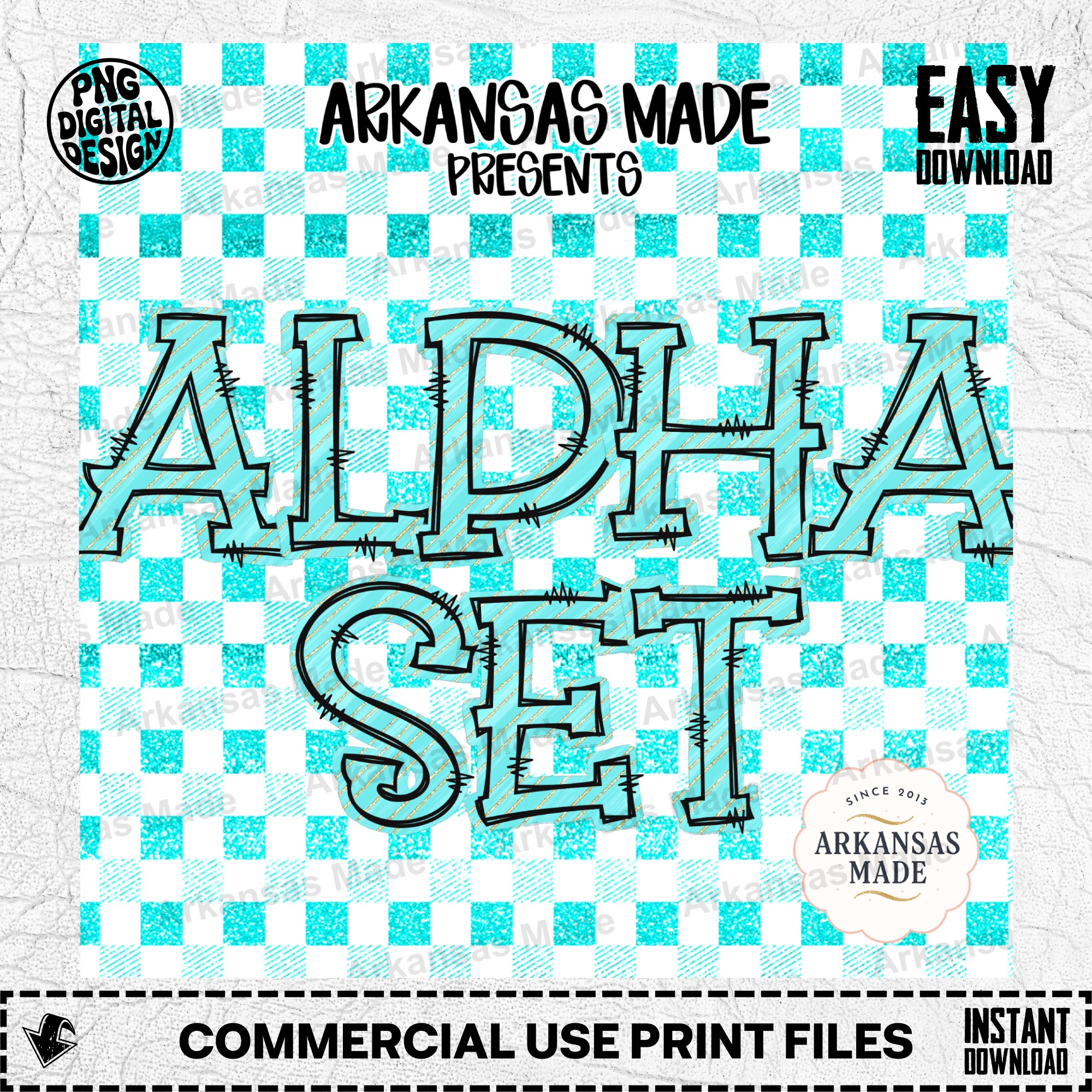
Digital Download Alpha Set PNG, Teal Glitter Alphabet Letters, Faux Gold Outline Doodle Font, Sublimation Craft Supplies
Instantly elevate your designs with our Teal Glitter Digital Download Alpha Set PNG! Featuring faux gold accents and a playful doodle outline. This vibrant alphabet set is perfect for crafters, small business owners, and DIY enthusiasts looking to add a personalized touch. Create stunning custom t-shirts, tumblers, scrapbook pages, and more for birthdays, holidays, or everyday projects. Unleash your creativity with this unique and eye-catching digital asset.